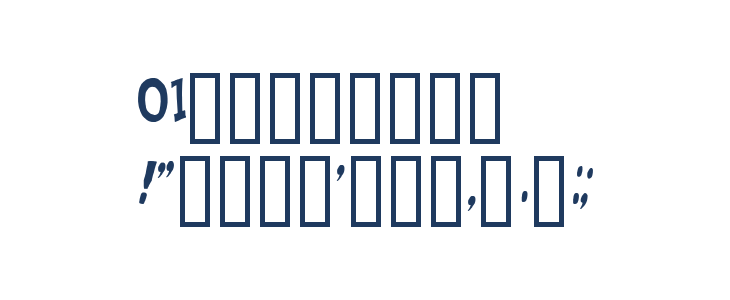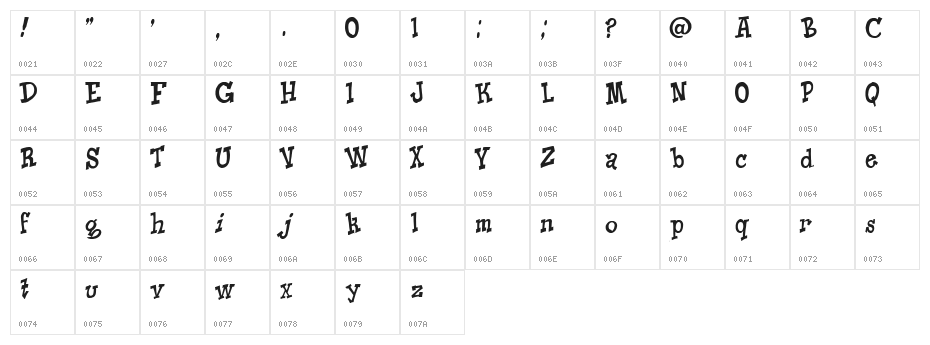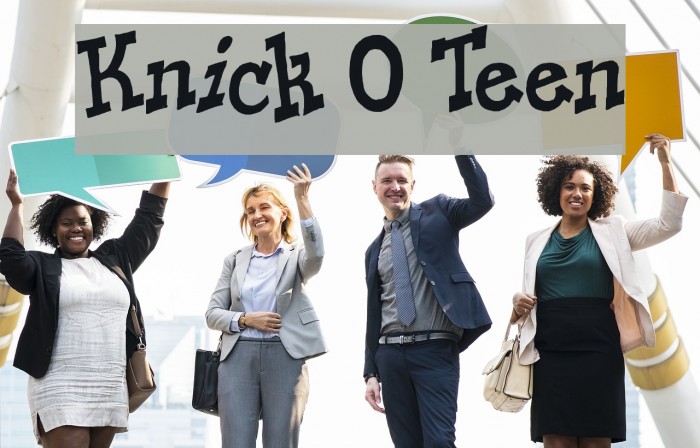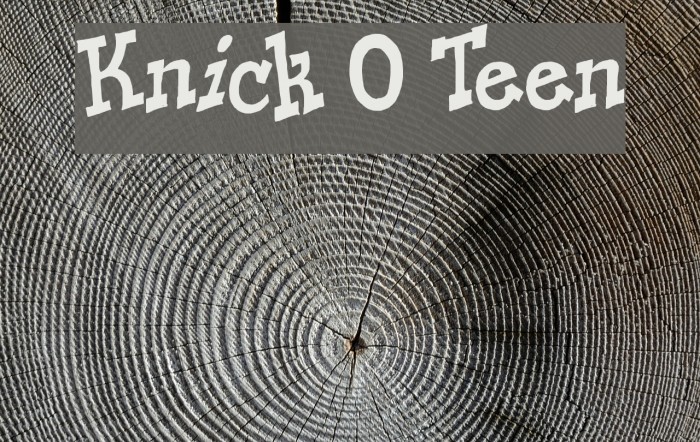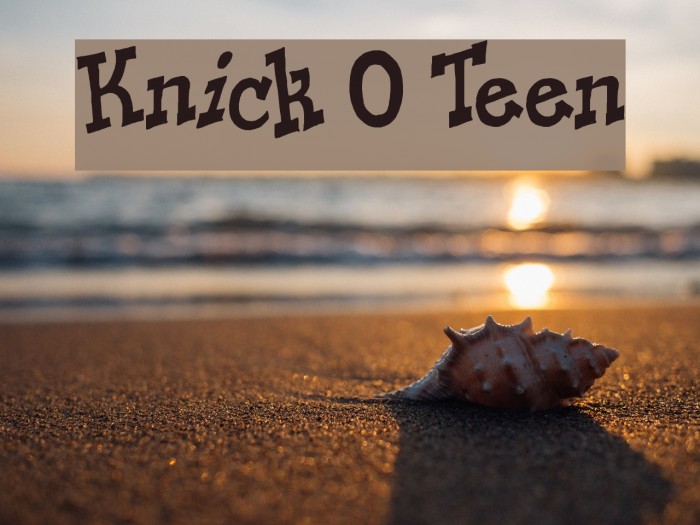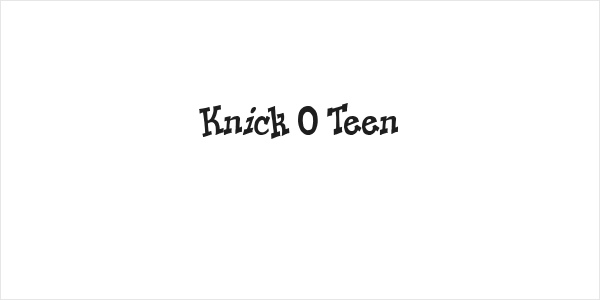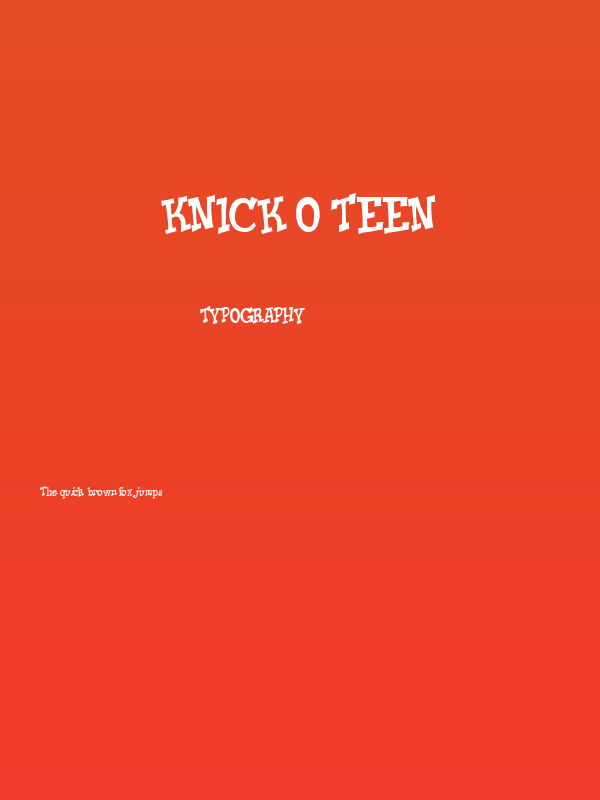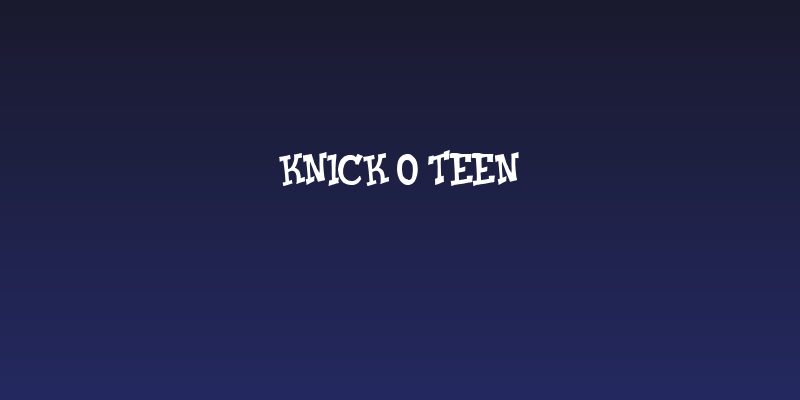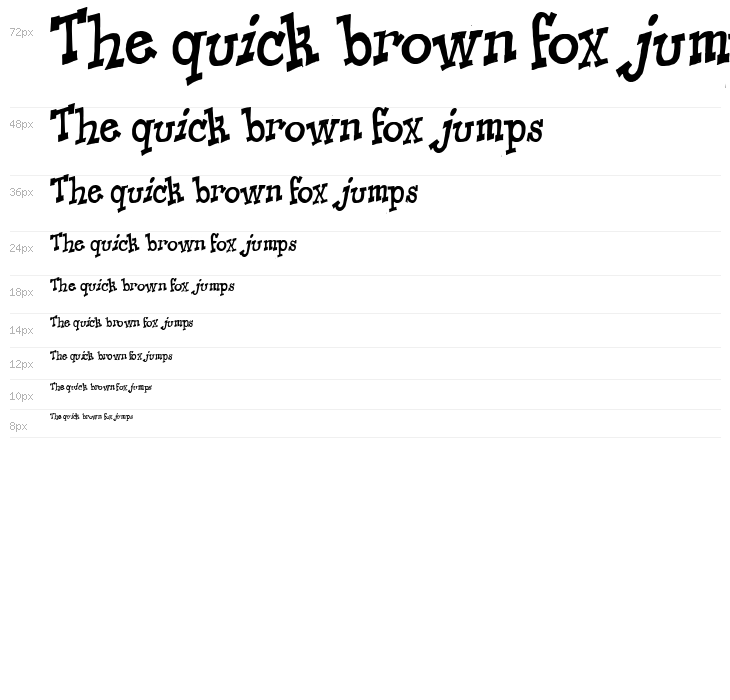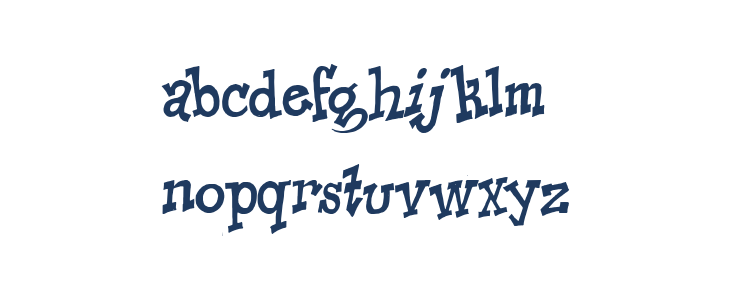
Knick O Teen Font
Knick O Teen Description
This font features a playful and dynamic style with a distinctively quirky and irregular design. The letters are bold and slightly tilted, giving them a lively and energetic appearance. The uppercase and lowercase characters maintain a consistent whimsical flair, with exaggerated curves and angles that create a sense of movement. The font's unique character is further emphasized by its uneven baseline and varying stroke widths, which add to its informal and fun aesthetic. This font is ideal for projects that aim to convey a sense of humor, creativity, or casualness.
Overall StylePlayful, Quirky
Proposed ProjectsIdeal for children's books, comic strips, playful branding, and creative posters.